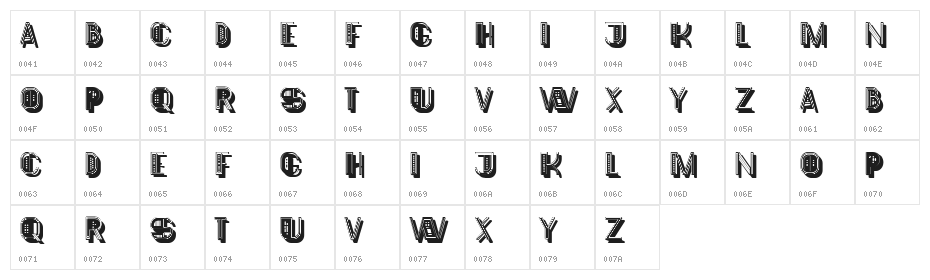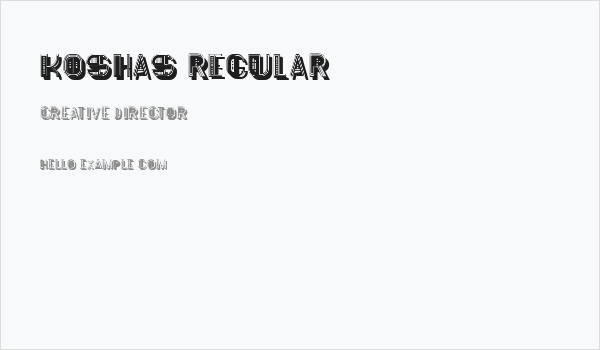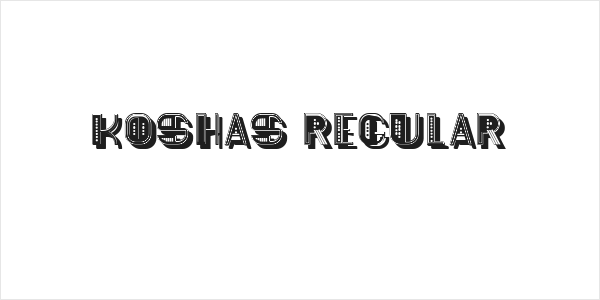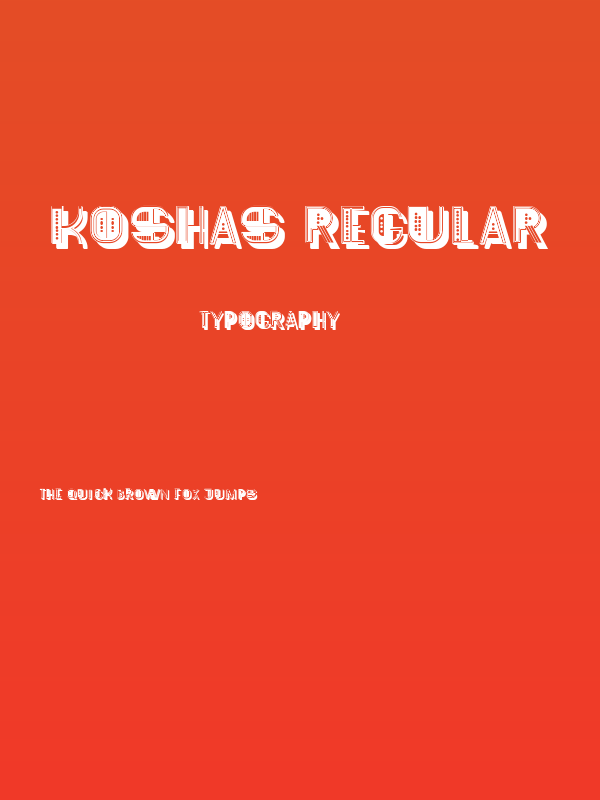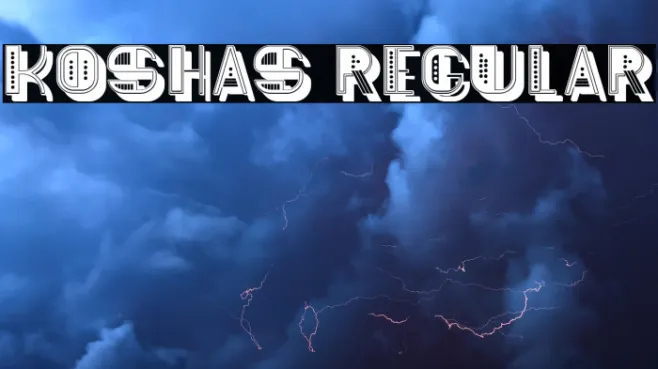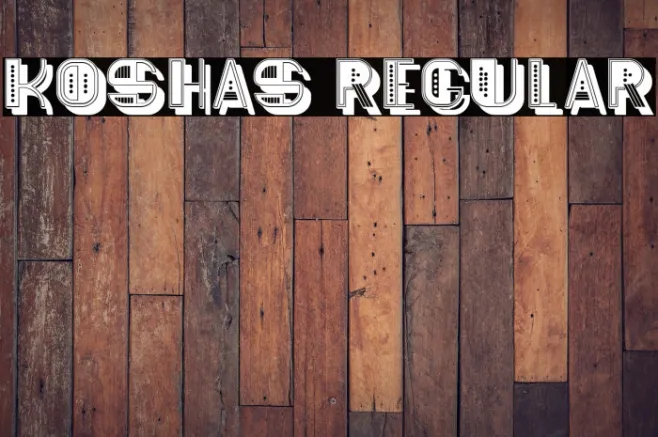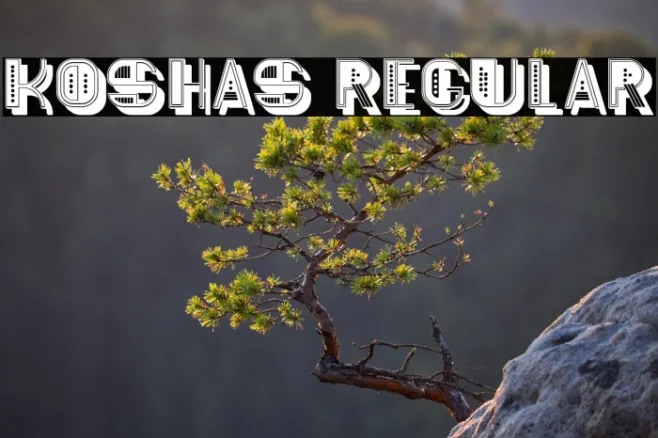
Koshas Regular Font
Koshas Regular Description
This font features a bold and decorative style with a unique blend of modern and vintage elements. The characters are designed with a three-dimensional effect, incorporating shadows and outlines that give them a striking appearance. The uppercase letters are particularly eye-catching, with intricate details and geometric shapes that add depth and interest. The font's playful yet sophisticated design makes it suitable for a variety of creative projects. Its boldness ensures that it stands out, making it ideal for headlines and display purposes.
| Overall Style | Modern Vintage |
| Proposed Projects | Ideal for posters, branding, packaging, and any project requiring a standout display font. |